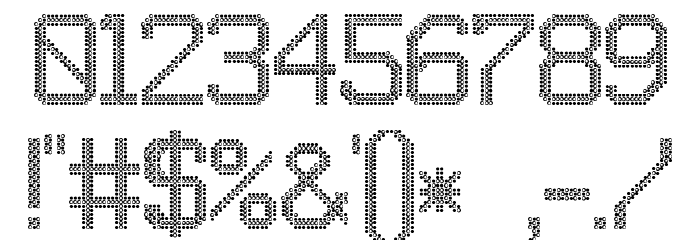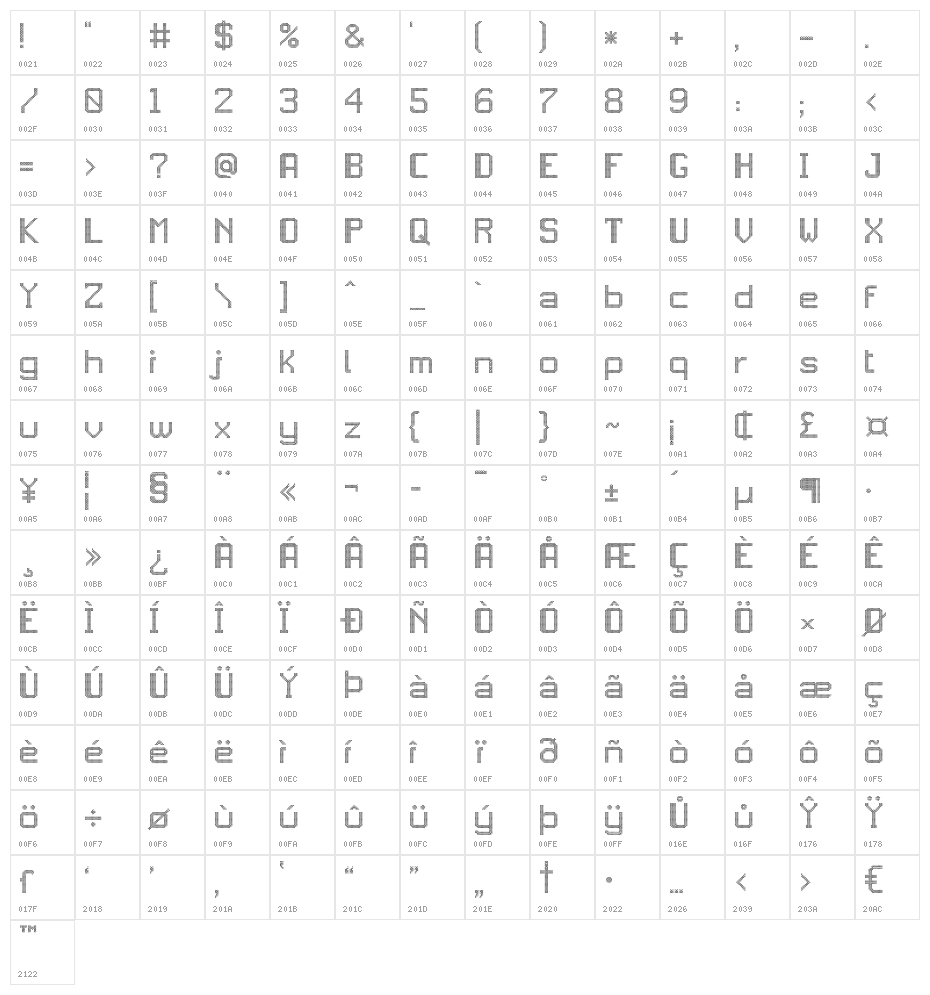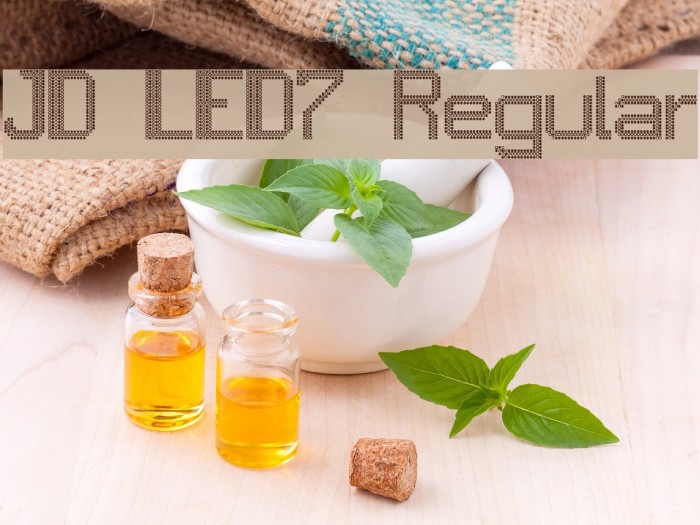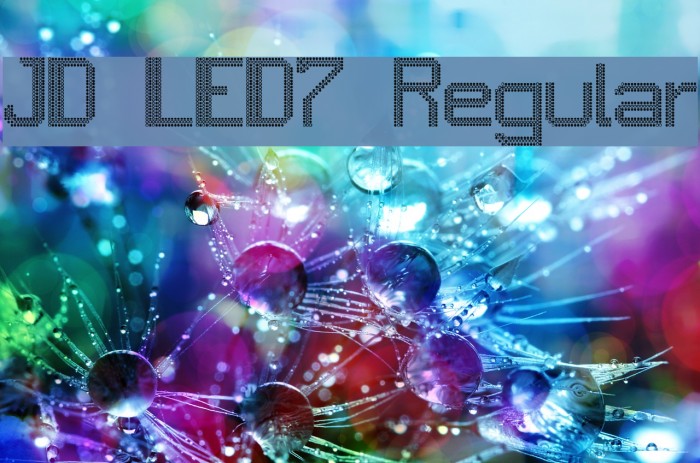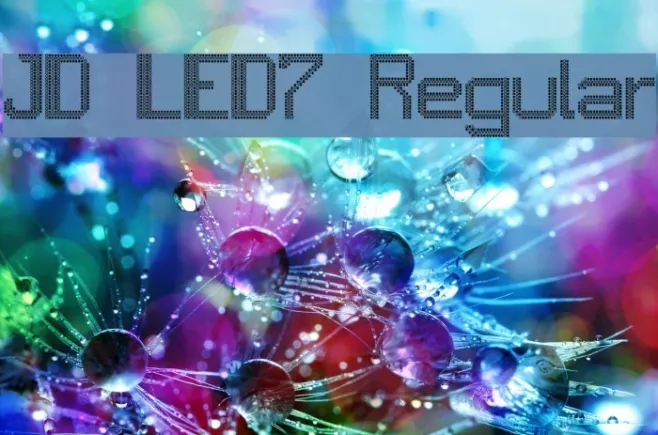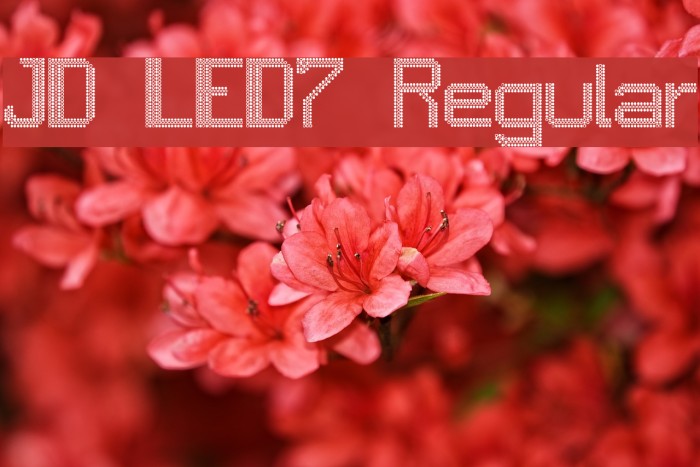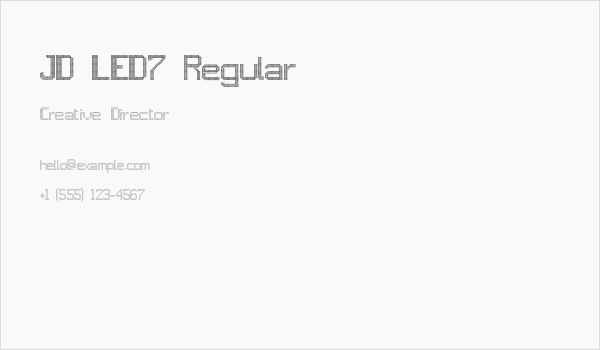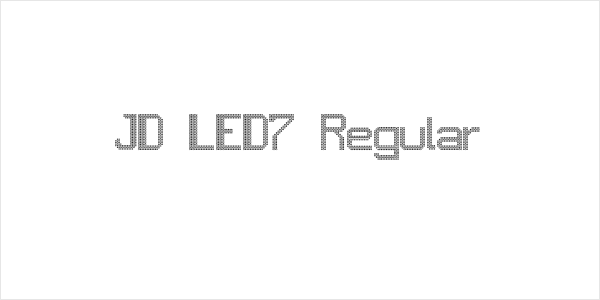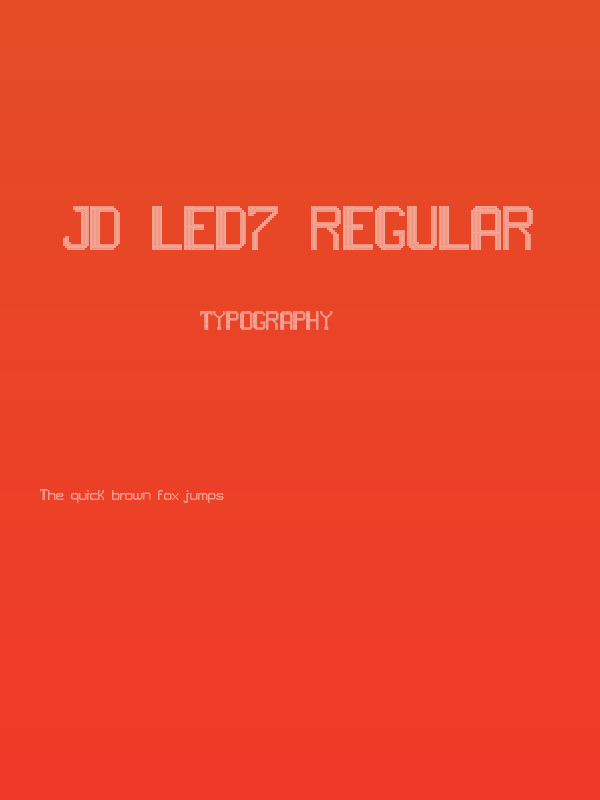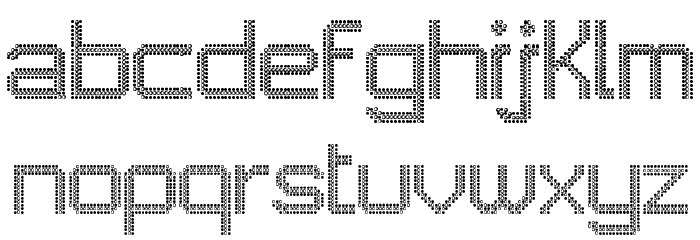
JD LED7 Regular Font
JD LED7 Regular Description
This font features a unique design that mimics the appearance of LED displays, with each character composed of small, evenly spaced dots. The uppercase and lowercase letters maintain a consistent geometric structure, providing a modern and digital aesthetic. The numerals and special characters follow the same dot matrix pattern, ensuring uniformity across all glyphs. The font's distinct style makes it ideal for projects that require a technological or futuristic theme.
| Use Case | Headlines, Logos, Digital displays |
| Proposed Projects | Ideal for digital displays, tech-themed posters, video game interfaces, and electronic device branding. |